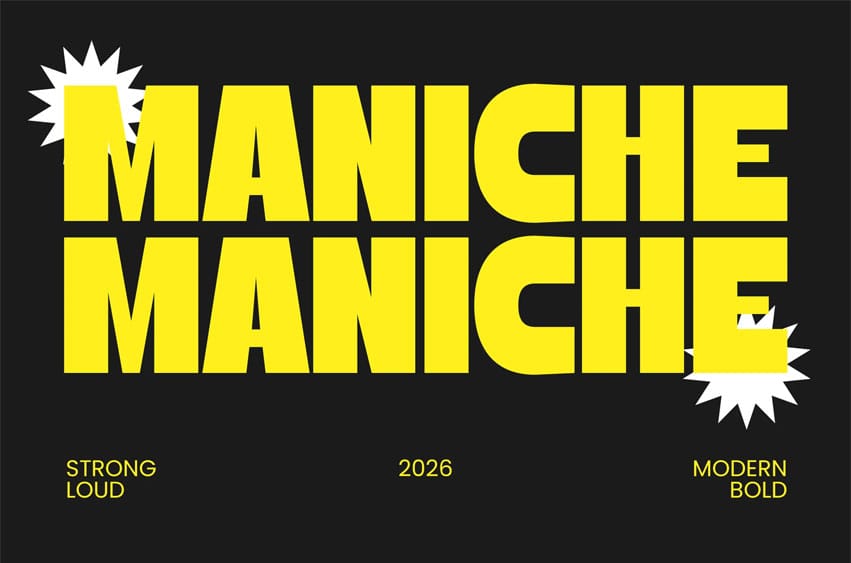
Maniche Font is a bold geometric display typeface designed for attention-grabbing headlines and modern visual branding, built with chunky shapes, rounded corners, and strong low-contrast letterforms that create a lively and confident visual tone.
The typeface carries a bold, energetic vibe that feels playful yet structured. Its thick geometric strokes and compact proportions help every word stand out clearly, especially in large compositions. Because of its strong personality, Maniche works well for branding, social media graphics, poster titles, packaging, and editorial headlines.
The rounded construction gives the letters a friendly and approachable feel, making it suitable for creative brands, festival posters, digital campaigns, product packaging, and modern marketing visuals. Designers can use it to build bold layouts that instantly communicate energy and clarity. With multilingual support for 67 languages, Maniche helps creators maintain consistent branding across international audiences.
Maniche is designed for projects that need visual impact and confident typography. Whether you are creating branding materials, event posters, magazine covers, music festival graphics, or bold social media layouts, this typeface helps deliver a clear and energetic message.
Key Features : Bold Geometric Construction
- Thick strokes and solid shapes create a strong visual presence for impactful headlines.
Rounded Modern Letterforms
- Soft corners add a friendly and contemporary tone without losing clarity.
High-Impact Display Style
- Perfect for posters, branding headlines, festival graphics, editorial covers, and packaging.
Creative Brand Personality
- Great for lifestyle brands, music events, social media campaigns, and modern advertising.
Multilingual Support
- Supports 67 languages, helping your brand communicate globally.
Clear Visual Rhythm
- Balanced proportions ensure readability while keeping designs bold and expressive.